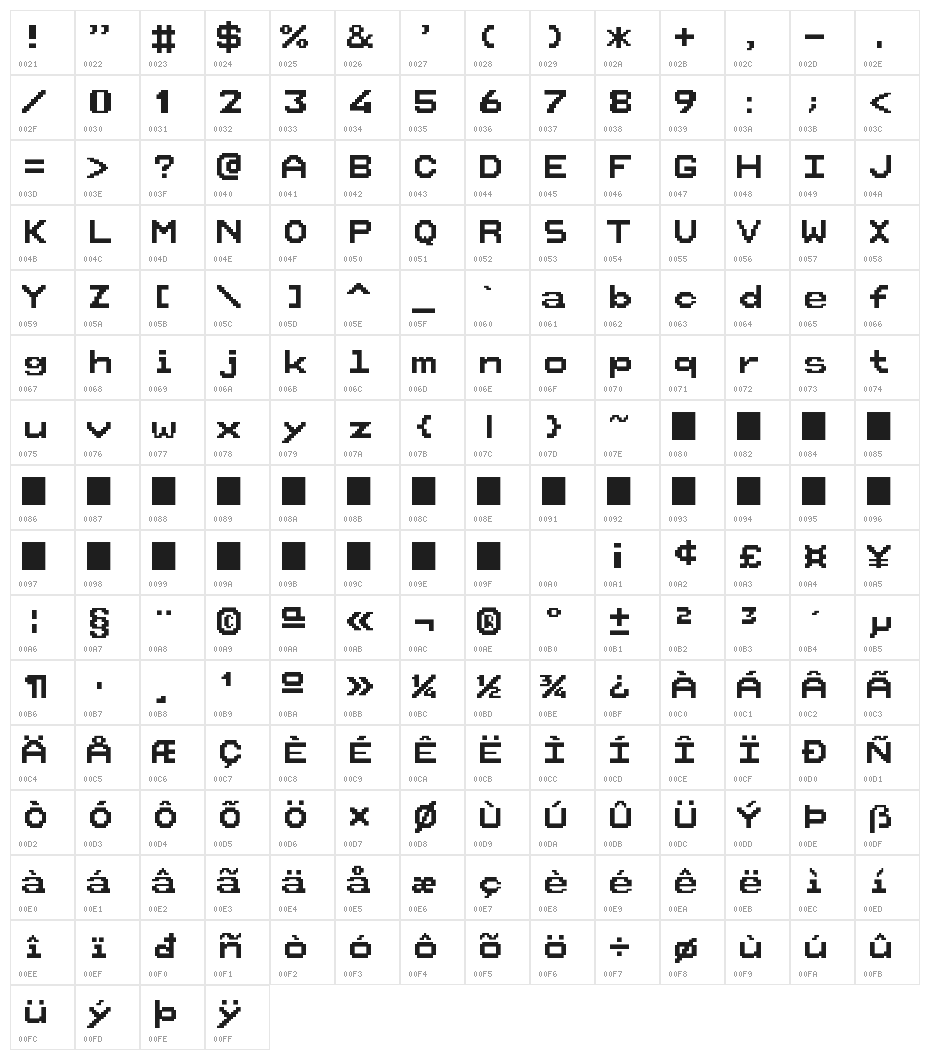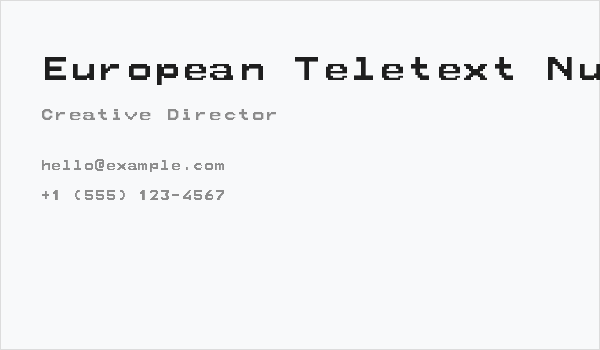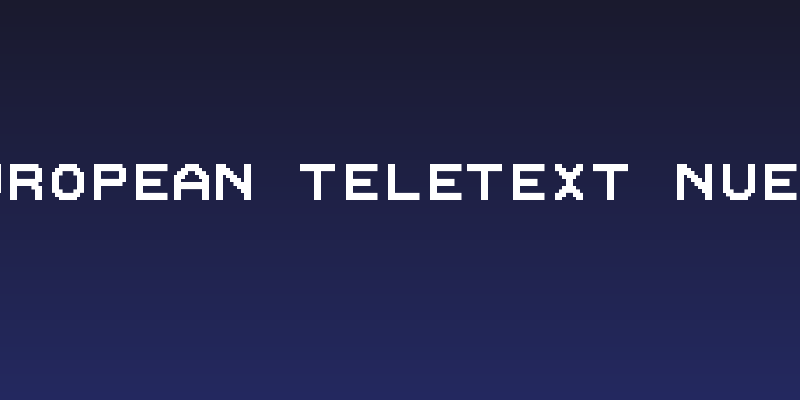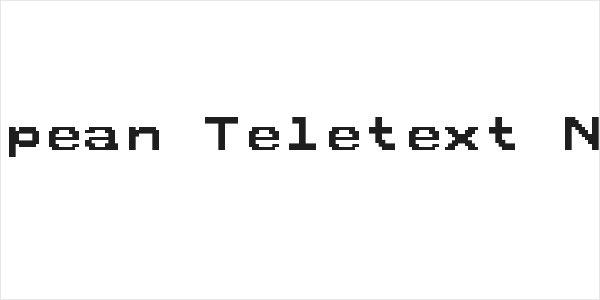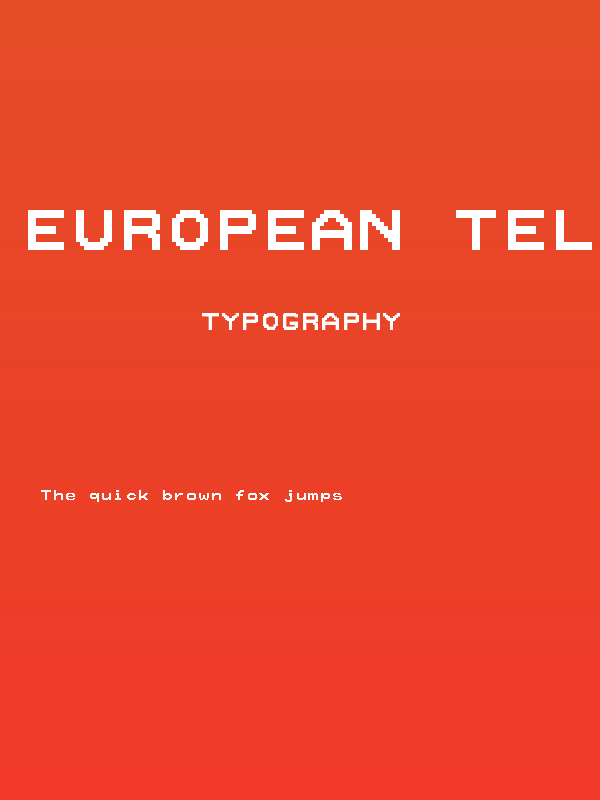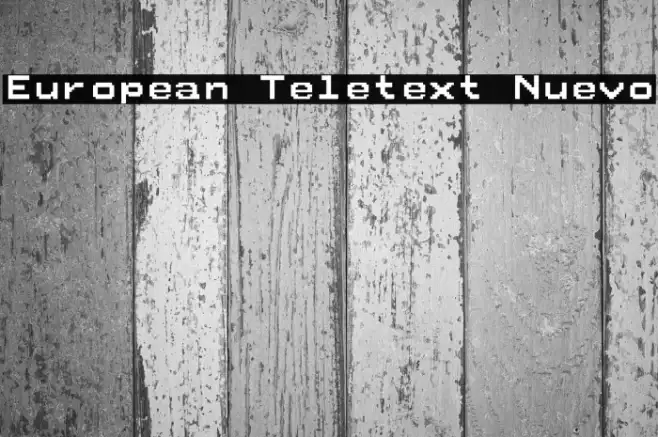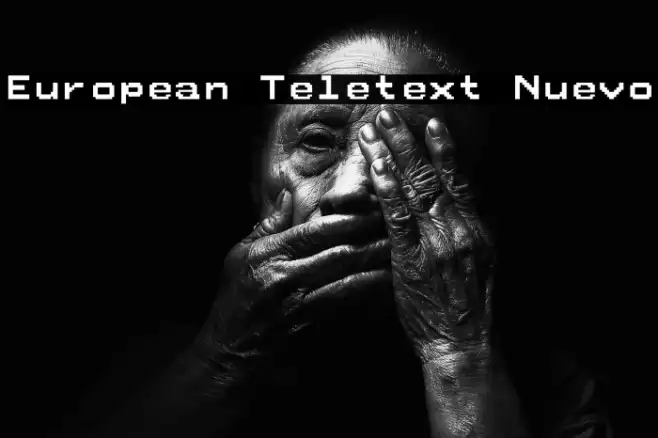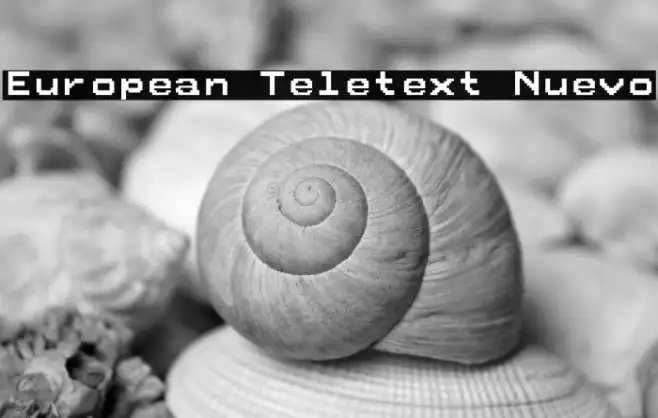
European Teletext Nuevo Font
| Estilo general | Vintage |
| Caso de uso | Headlines, Digital displays, Retro designs |
| Proyectos propuestos | Ideal for retro-themed designs, digital art, video game interfaces, and any project seeking a nostalgic, vintage computing feel. |